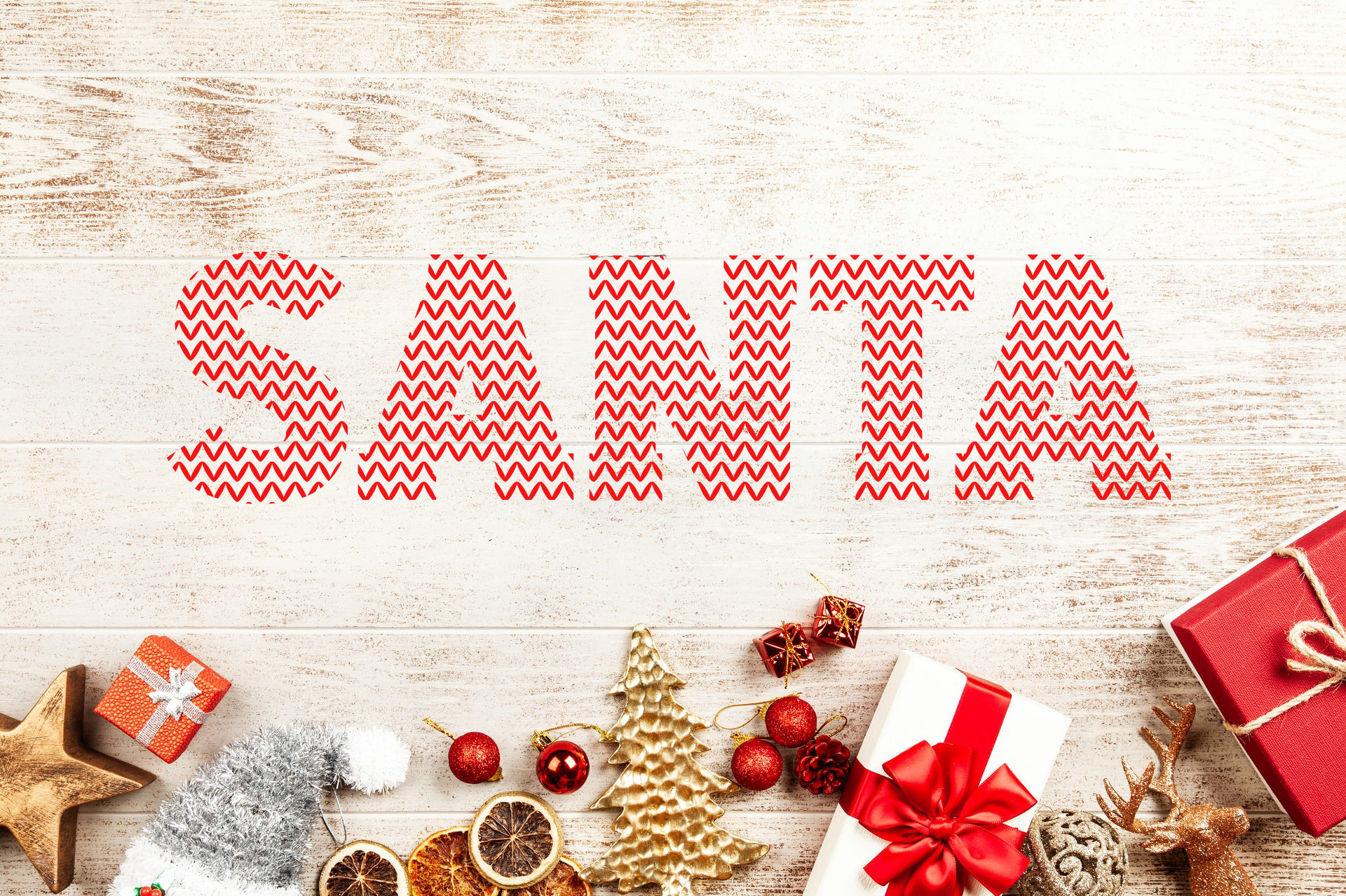
Santa Ugly Sweater - Christmas Font
Santa Ugly Sweater Knitted Font
Evoke the magic of the Christmas using and enjoy your worm Ugly Sweater. Add it to your holiday designs and make them come alive!